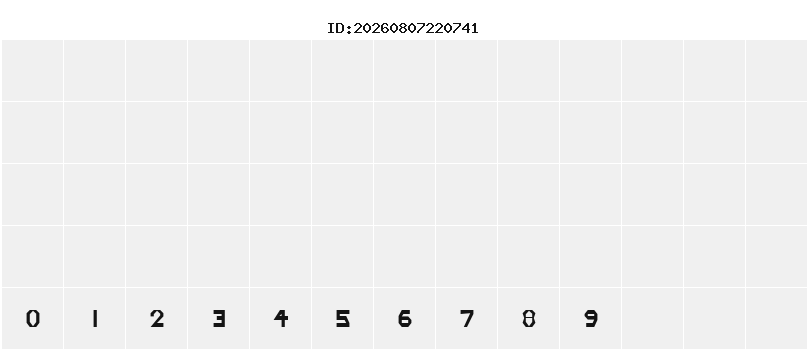
Putch Preview
• Font Name: Putch
• Font ID: Meir Sadan Putch
• Full Font Name: Putch
• Version: Version 1.50
• PostScript Name: Putch
About Putch.ttf
Putch.ttf is a modern, elegant sans-serif font designed for ultimate readability and visual harmony. Perfect for branding, headlines, web design, and print materials.